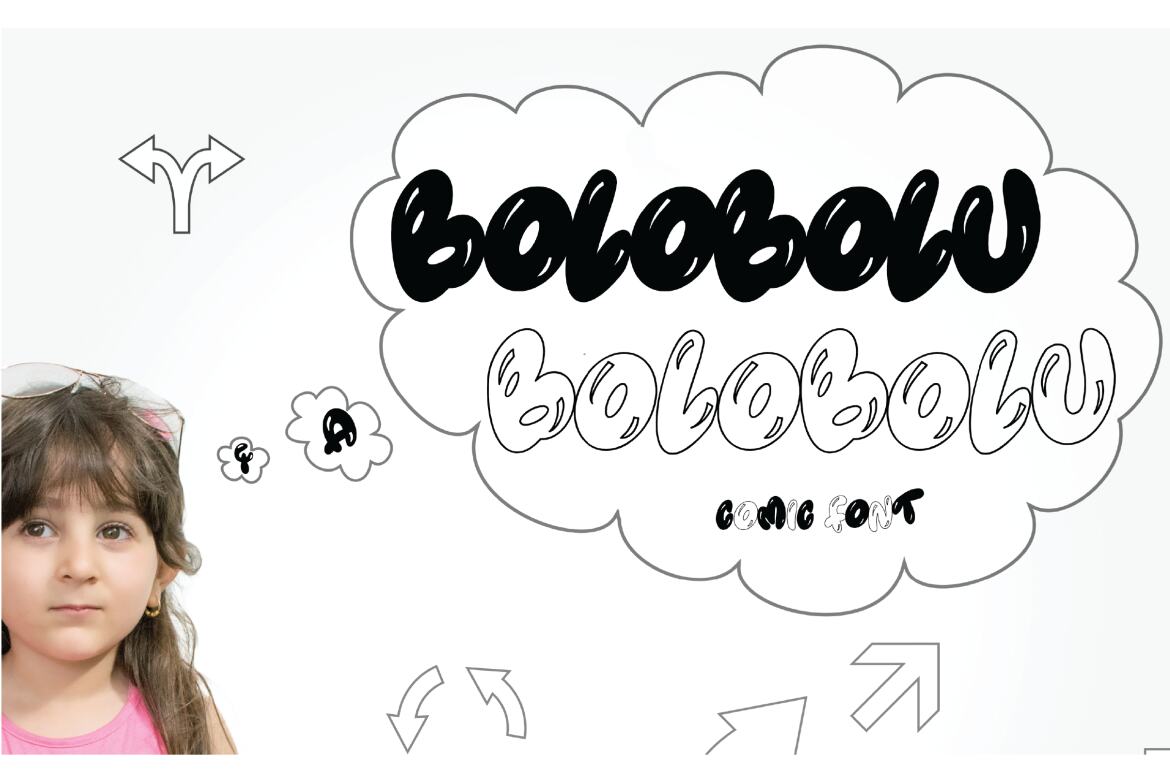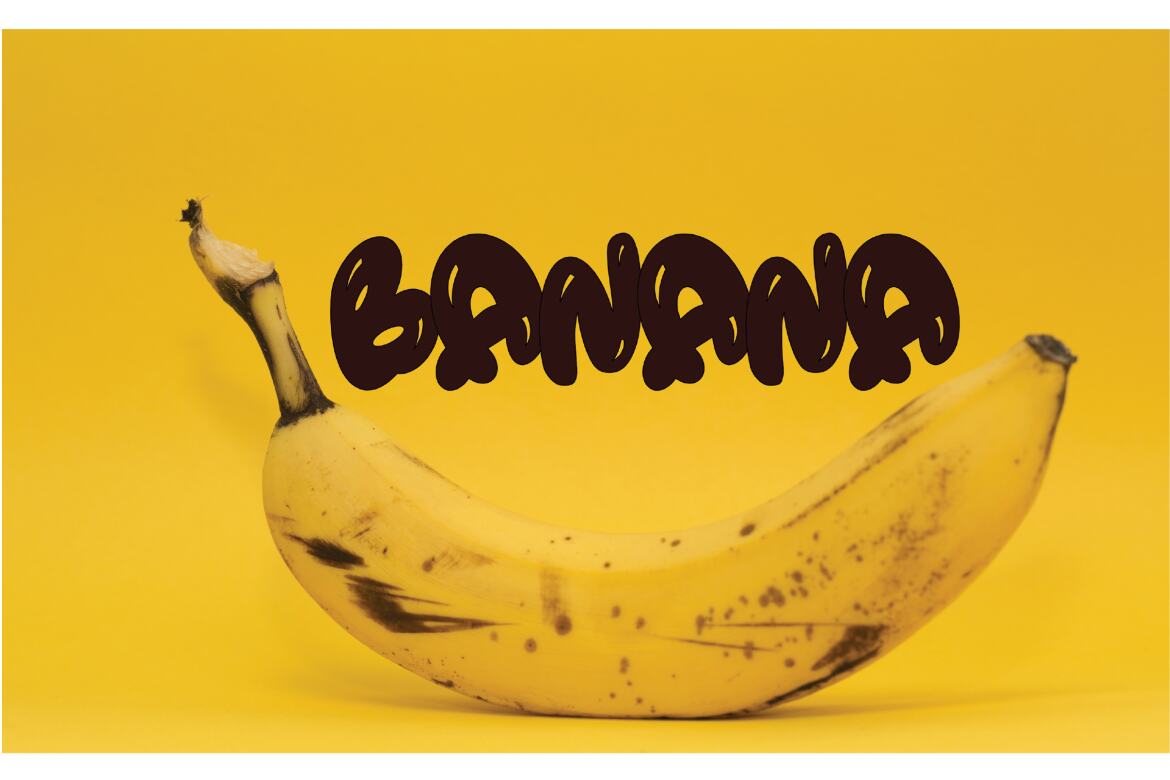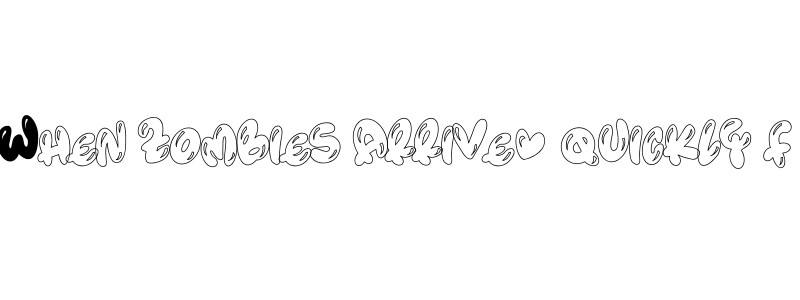
Bolobolu FREE Font
bobobolu font bubble . This font was designed by handwriting, and it has a modern and unique forms of calligraphy, the writing style is very natural.by cocodesign